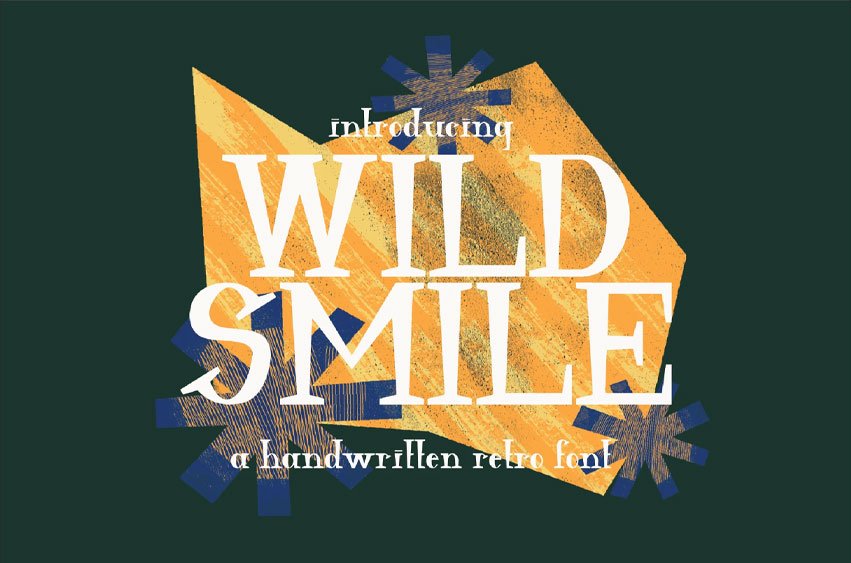
Wildslime Font is a fun and cheerful font designed with kids in mind.
Its bouncy, rounded letters and playful character make it perfect for creating joyful, lively designs. Ideal for children’s books, toys, posters, and any project that needs a lighthearted, whimsical touch.